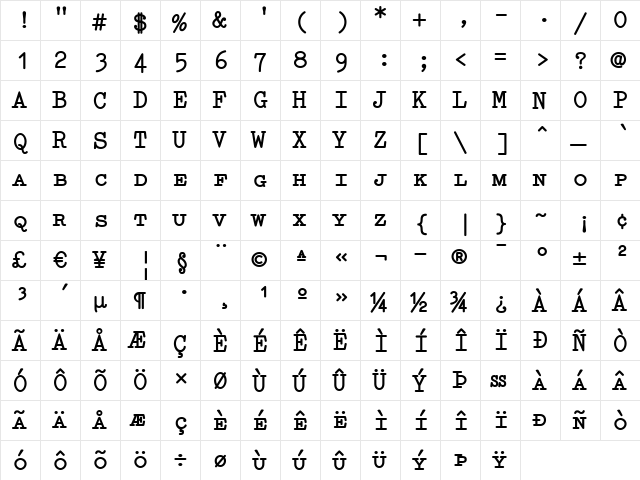
Elementa SC Bold
Design Context for Elementa SC Typeface
Elementa SC offers clean, dependable letterforms without strong stylistic allegiance, making it a practical choice for designers who need flexibility. Its bold stroke weight gives it real presence on the page.